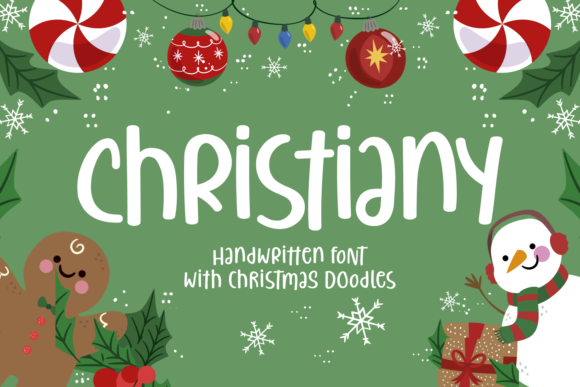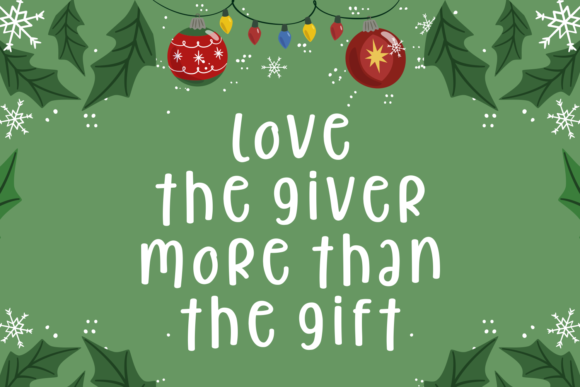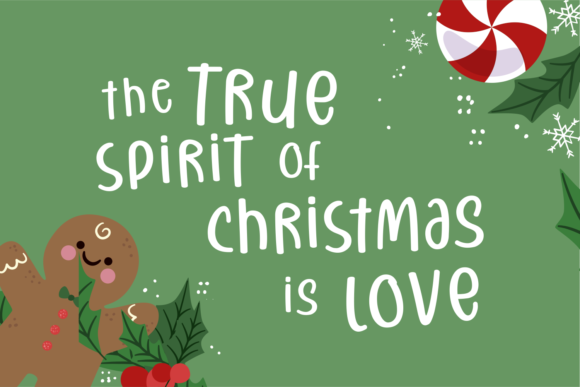
Christiany Font
About Christiany Font
The Christiany is a playful handwritten font. It has a great readability, even in small size. It’s youthful and fun style makes it perfect for creating christmas designs! Included are fun Christmas and winter doodles!